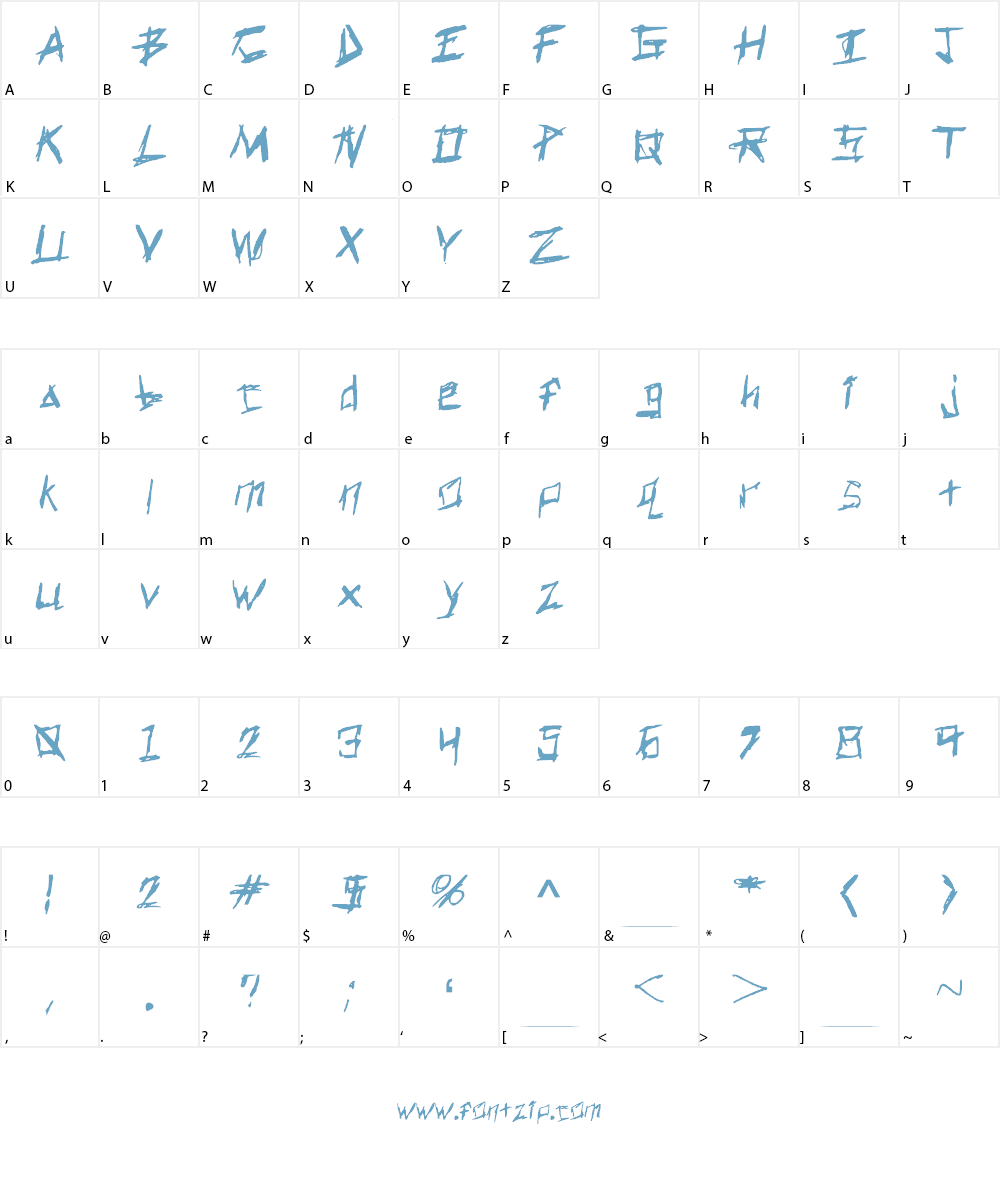
Inspired by the "Slender" type fonts. There isn't really any sort of specific rule set I follow in this, I just made if for my own personal use and decided later on to post it up here.